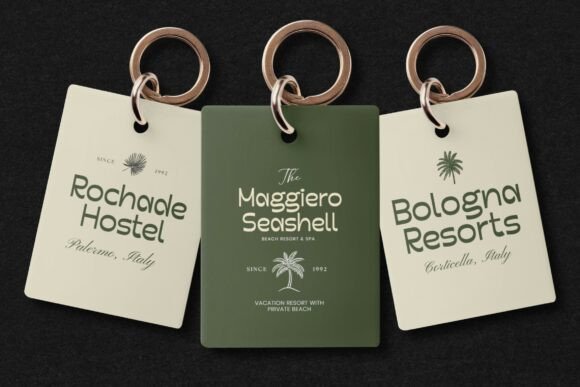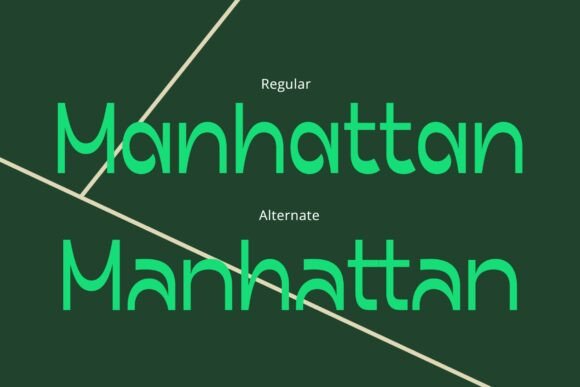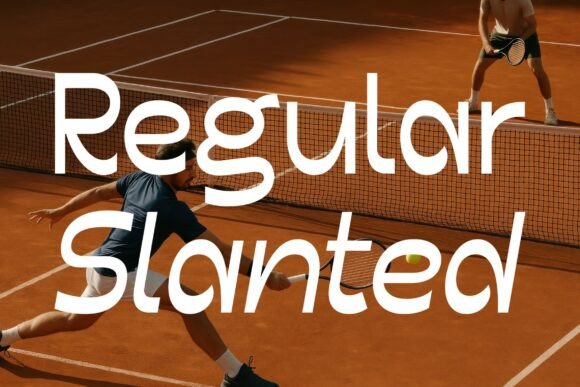
Introduction to Palgars Font
Have you ever stared at a blank canvas, feeling like your design just needs that one special something to bring it to life? We’ve all been there – and that’s where the Palgars Font comes in. This game-changing font is about to take your creative projects to the next level, adding a touch of personality and charm that’s sure to captivate your audience.
As a valuable resource for designers, the Palgars Font offers a unique blend of modern and playful styles that’s both versatile and instantly memorable. Its clean sans-serif foundation makes it perfect for a wide range of applications, from branding and packaging to posters and social media posts. And with its friendly, flowing letterforms, you’ll be able to add a touch of sophistication to even the most complex designs.
Key Features of Palgars Font
- High-quality, professional font suitable for various creative projects.
- Unique, modern design with a distinctive aesthetic, perfect for adding a touch of sophistication to various creative projects.
Honest Review: Palgars Font
- ✨ High quality: The font is well-designed, and the glyphs are crisp and clear, making it perfect for use in creative projects.
However, I did encounter a few limitations.
- ⚠️ Limited font styles: The Palgars Font is available in only a few styles, which might limit its use in certain design projects.
- ⚠️ Not ideal for small text: The font is best used for titles and headings, as the small text can become difficult to read.
Overall, I’m impressed with the Palgars Font. It’s a solid design resource that can add a touch of elegance to any creative project. While it has its limitations, it’s a great option for designers looking for a high-quality, free font.
Palgars Font
Palgars Font is a versatile design resource ideal for creative projects. Its clean and modern design makes it suitable for various applications. To get the most out of this high-quality font, follow these steps:
Palgars Font is ideal for various design projects, including business cards, brochures, and social media graphics. Its clean and modern design makes it suitable for a wide range of applications.